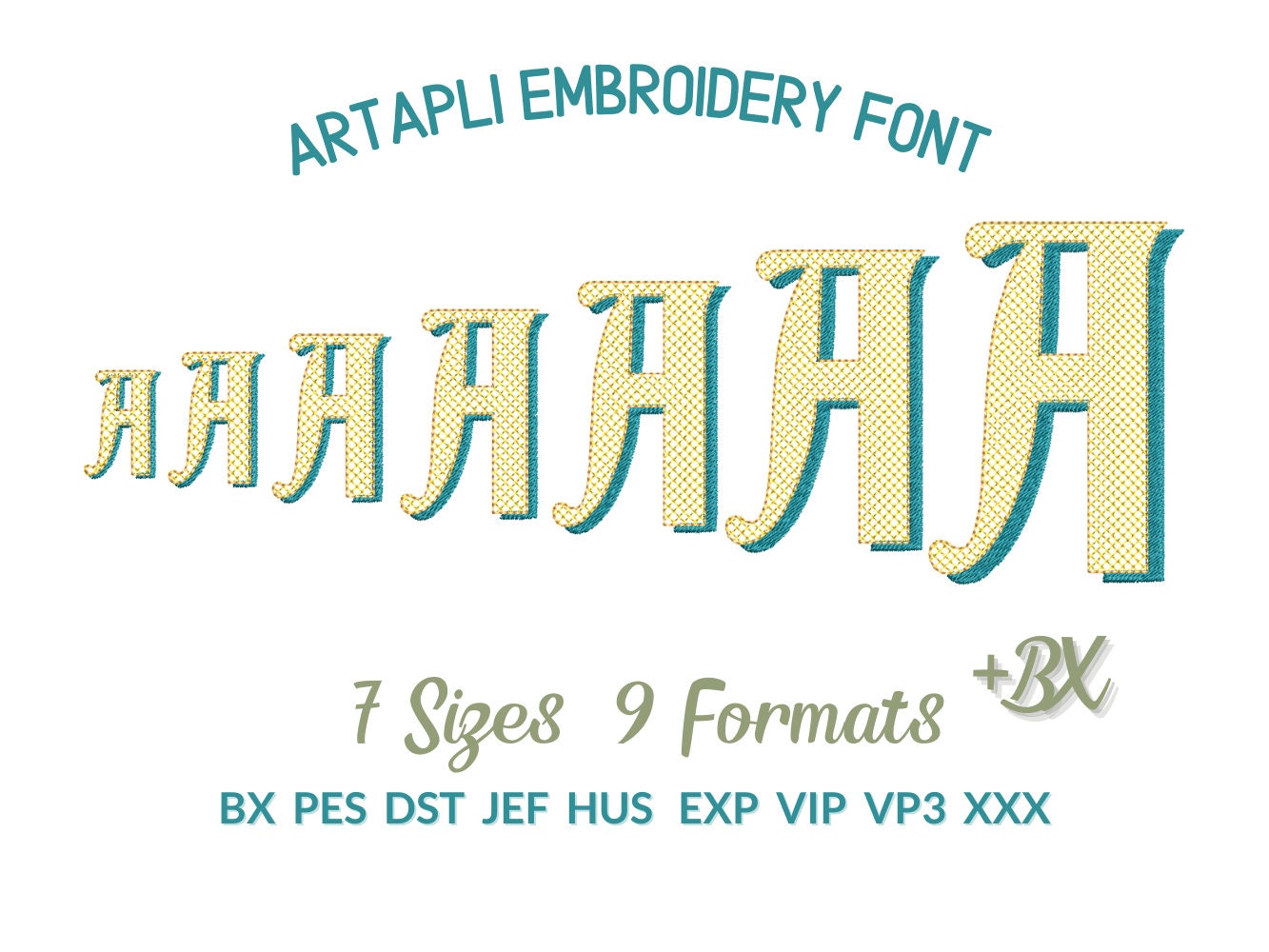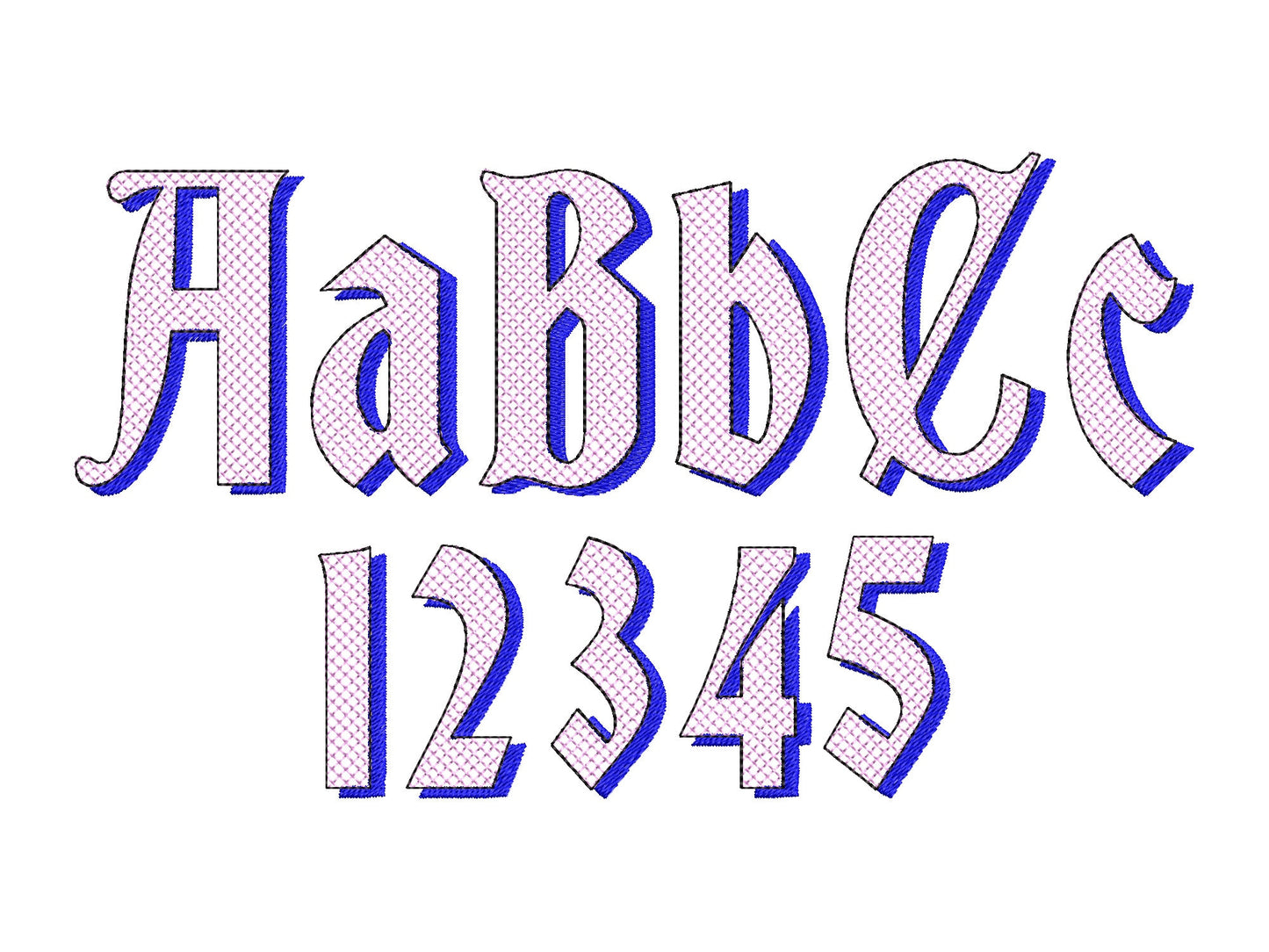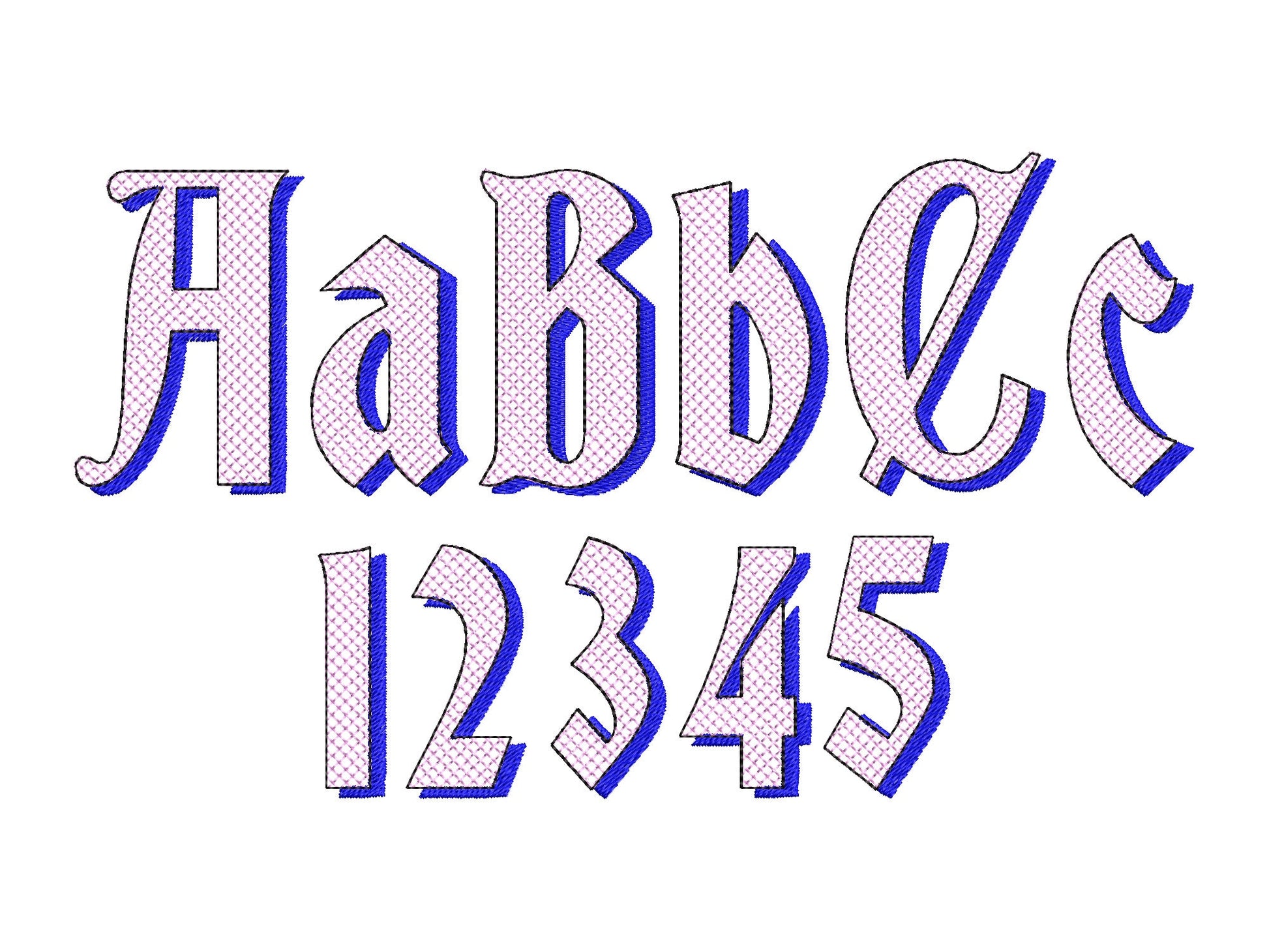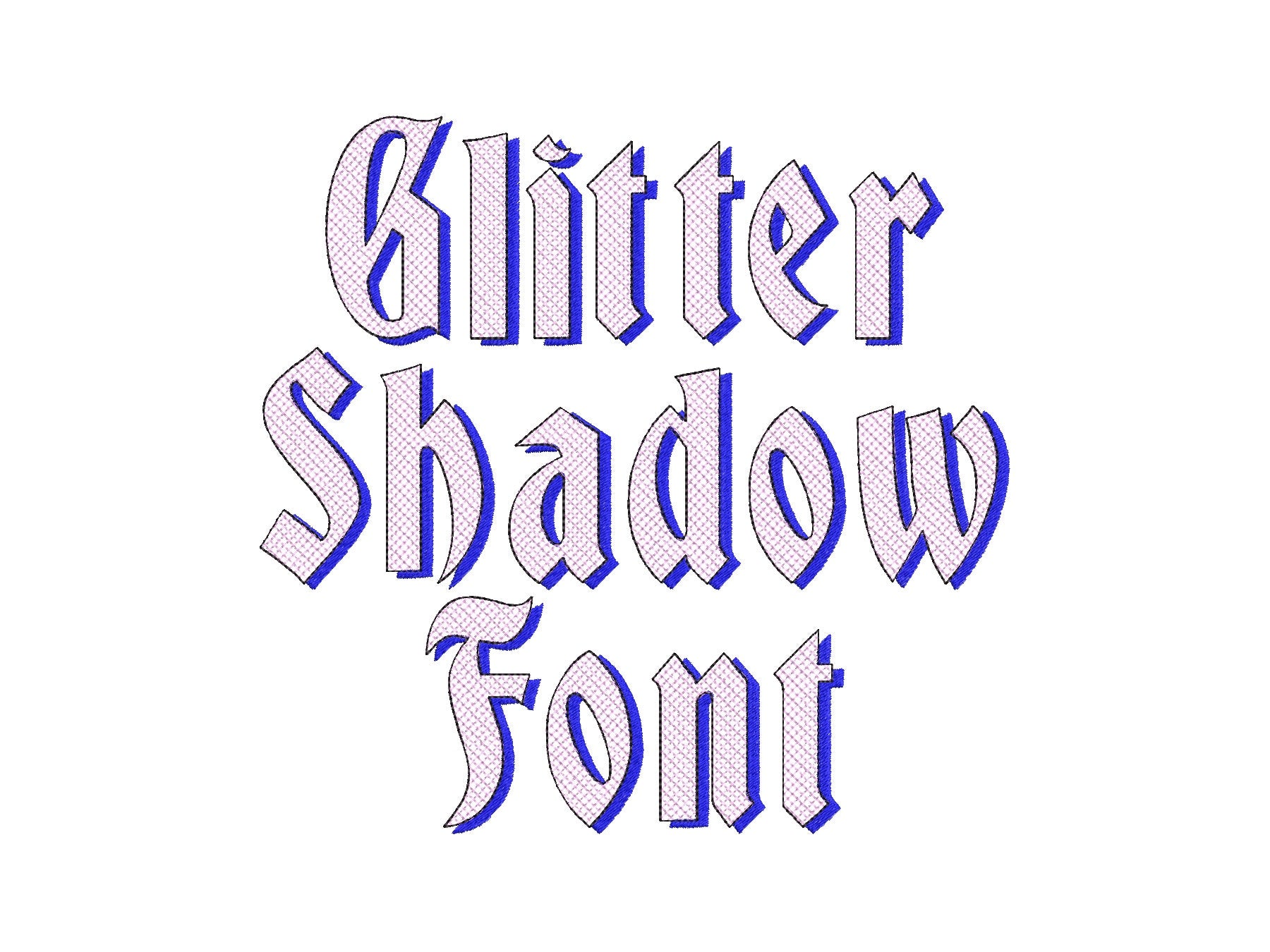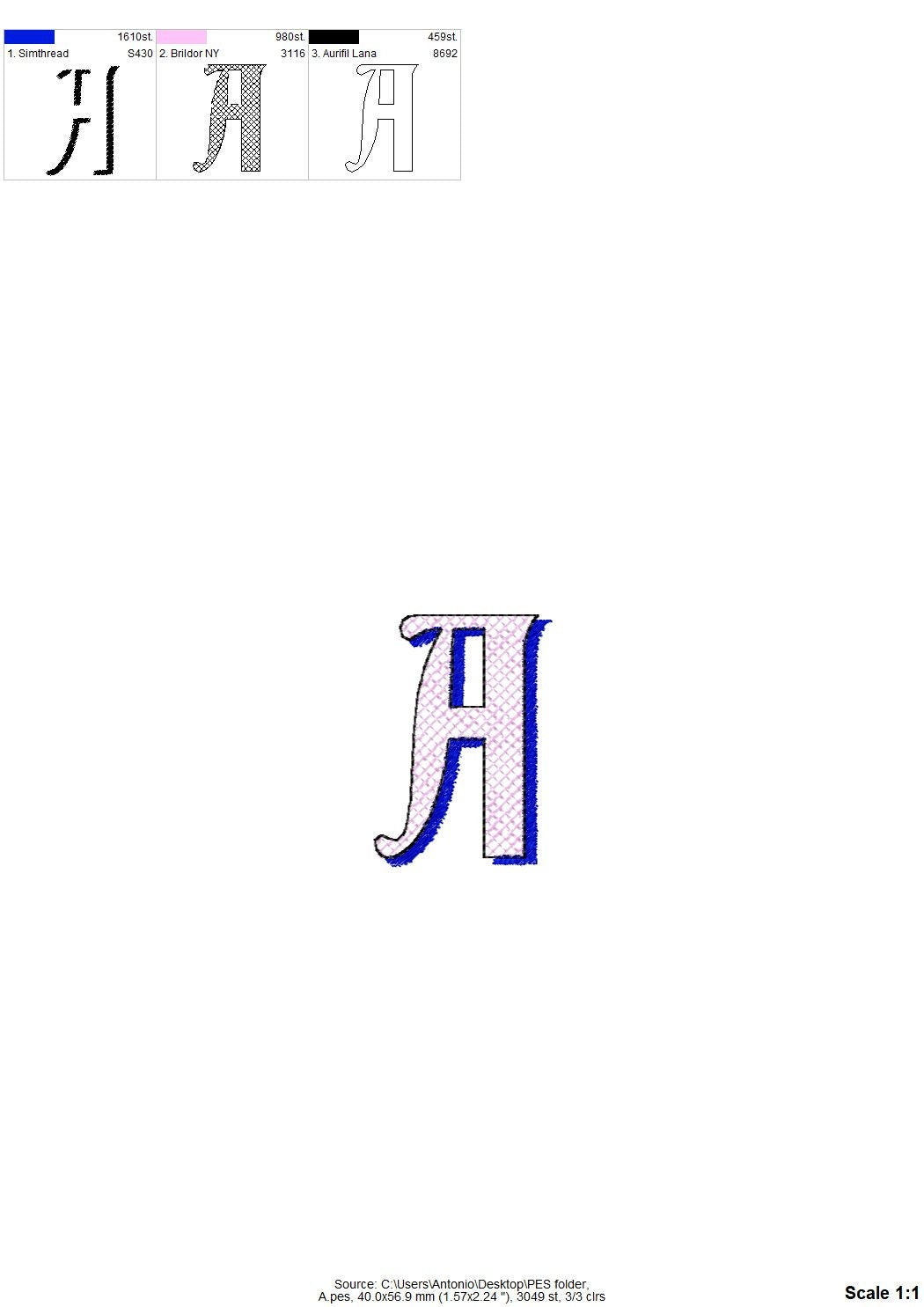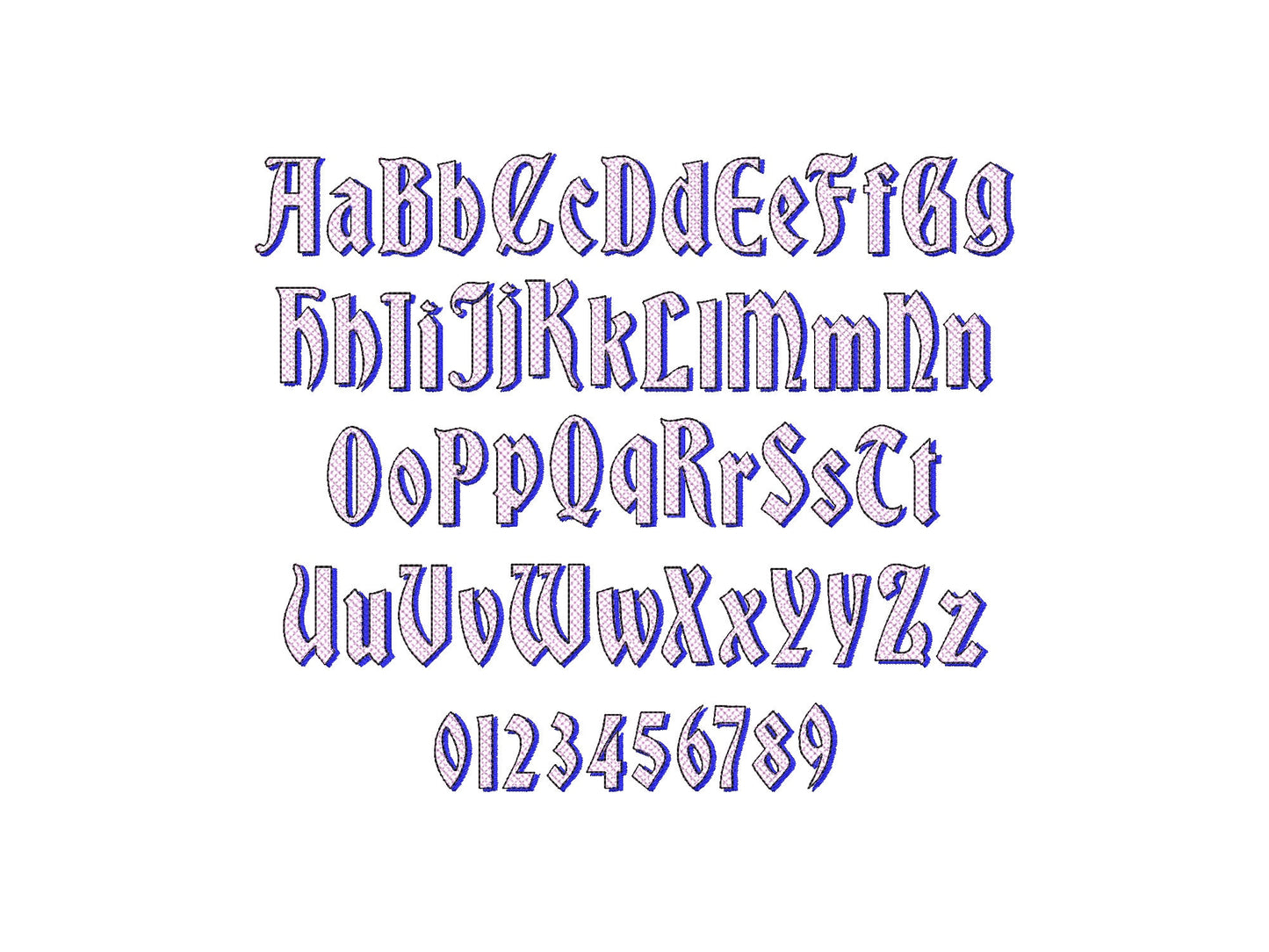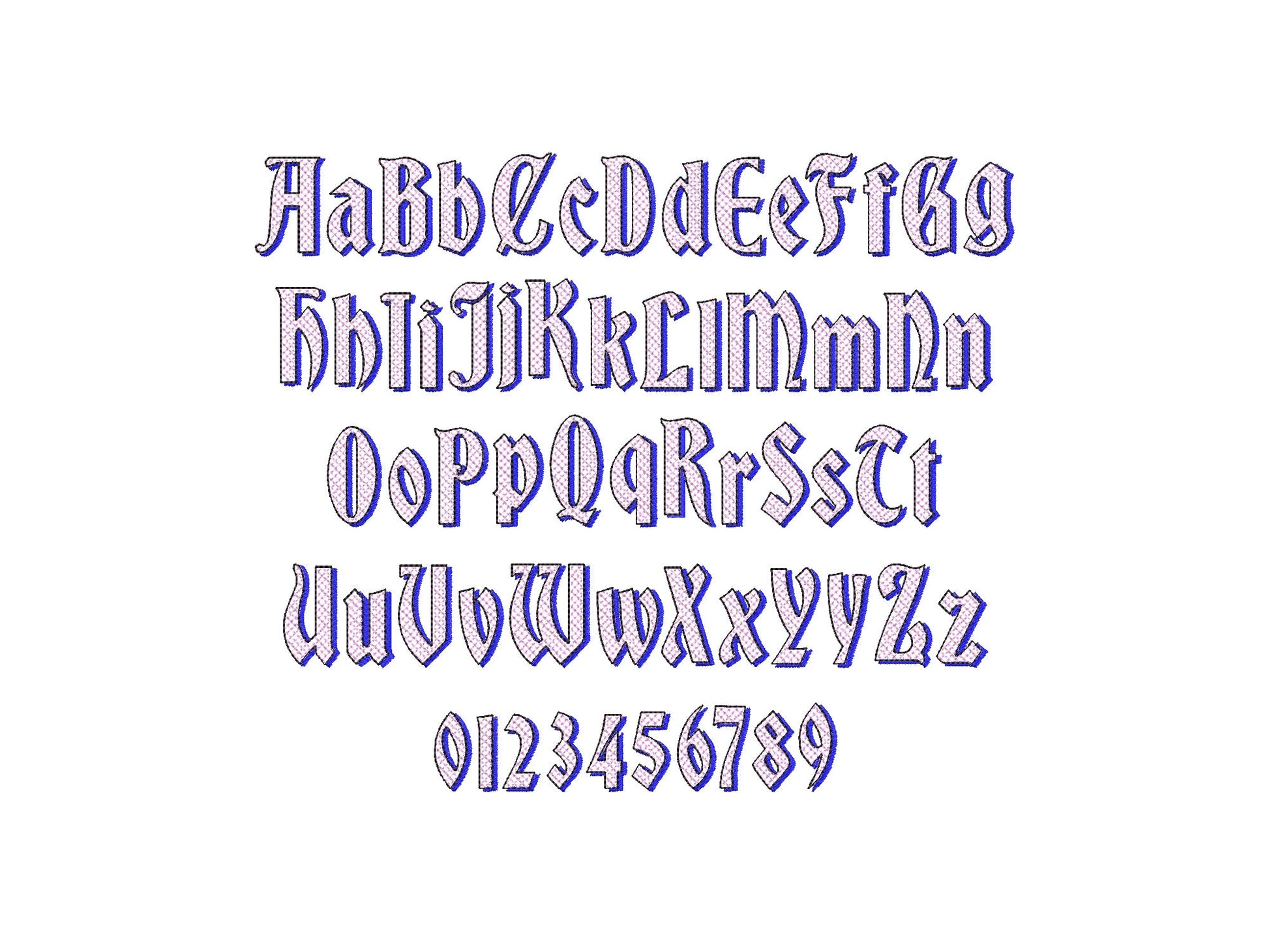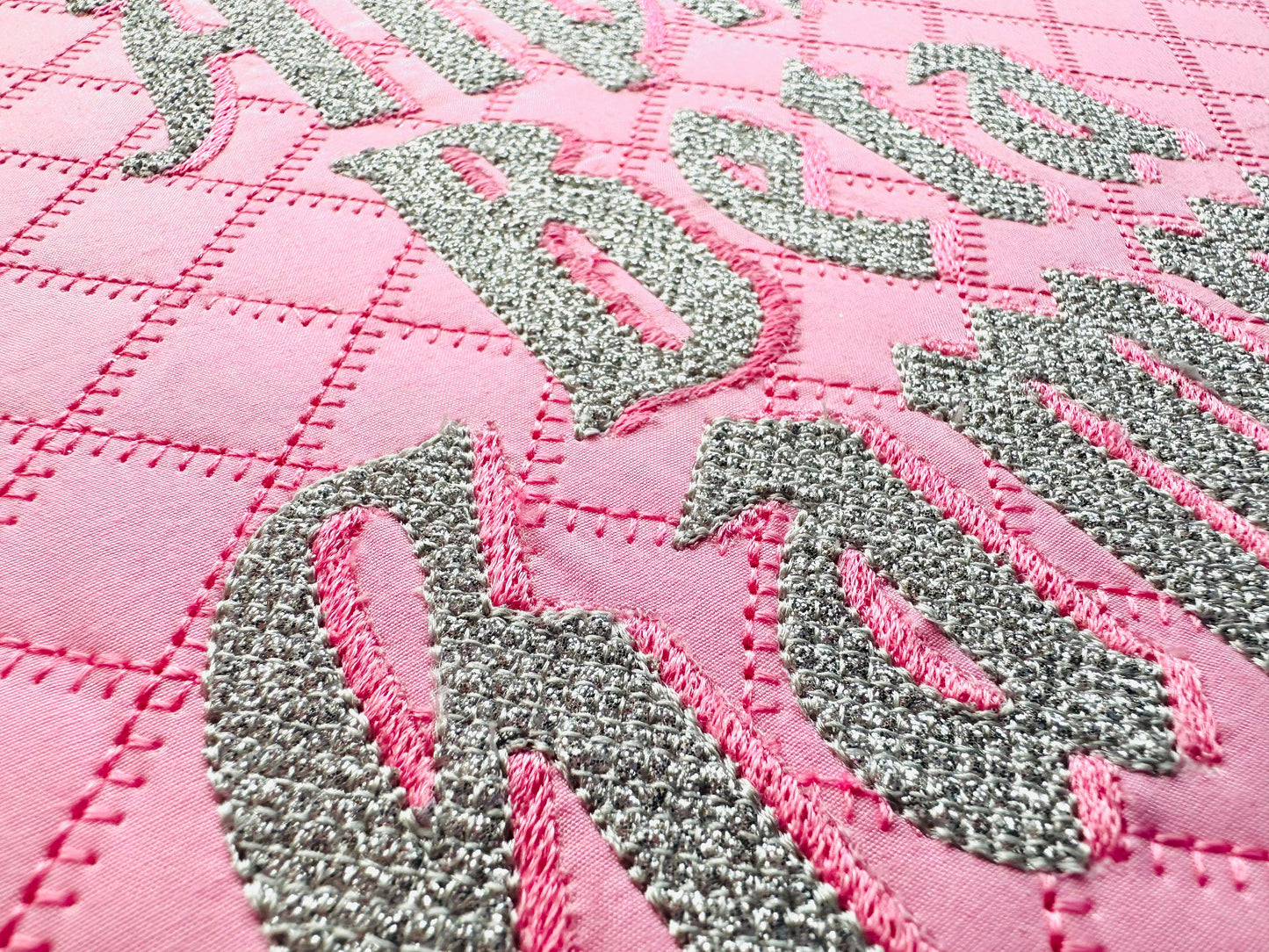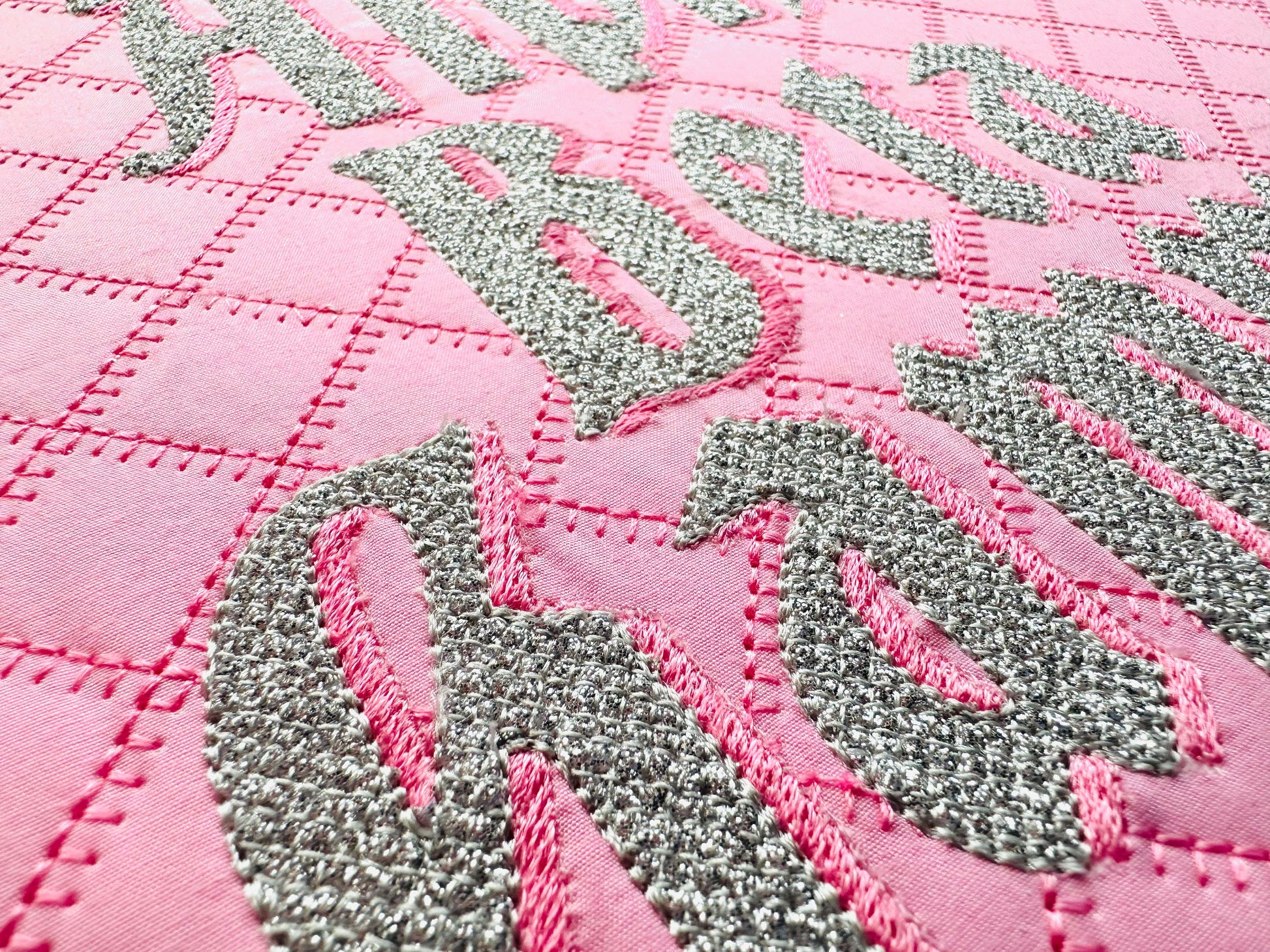
Or click to open the linkAn old style shadow font made for glitter heat transfer vinyl. Sparkly for names and monograms on shirts, bags and party outfits.
Uppercase and lowercase letters and numbers 0 to 9 in seven sizes: 1.1, 1.4, 1.8, 2.2, 2.7, 3.2 and 3.9 inches.